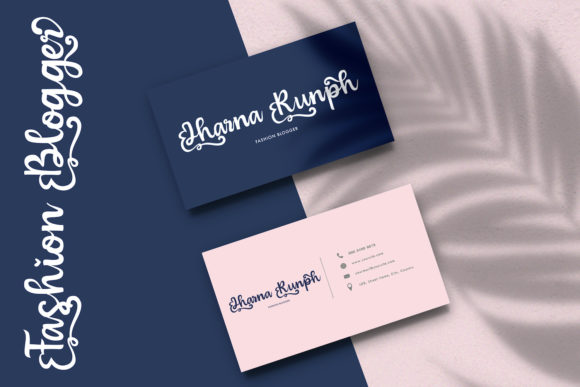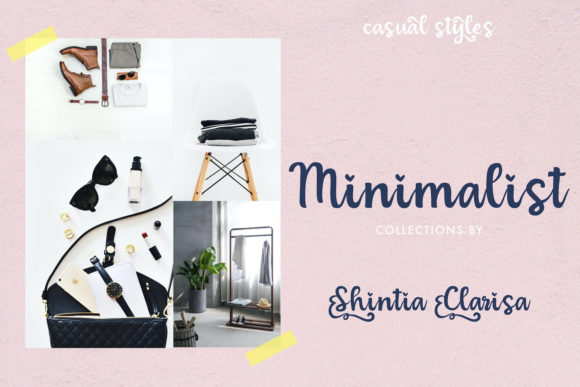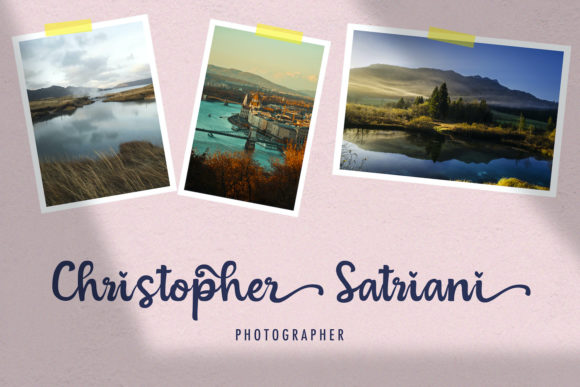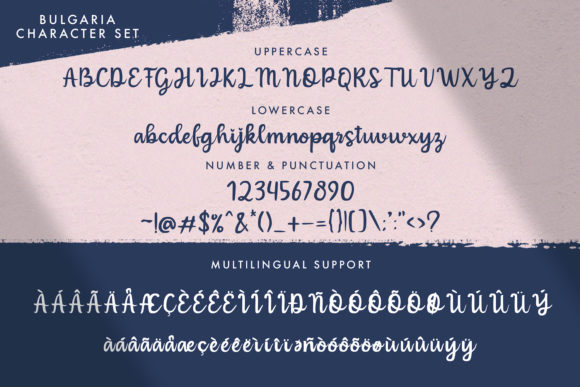
About Bulgaria Font
Bulgaria is a cute and casual handwritten font with an incredibly friendly feel. Its casual charm makes it appear wonderfully down-to-earth, readable and, ultimately, incredibly versatile. Bulgaria will look outstanding in any context, whether it’s being used on busy backgrounds or as a standalone headline! This font is PUA encoded which means you can access all of the cute glyphs and swashes with ease! It also features a wealth of special features including alternate glyphs and ligatures.